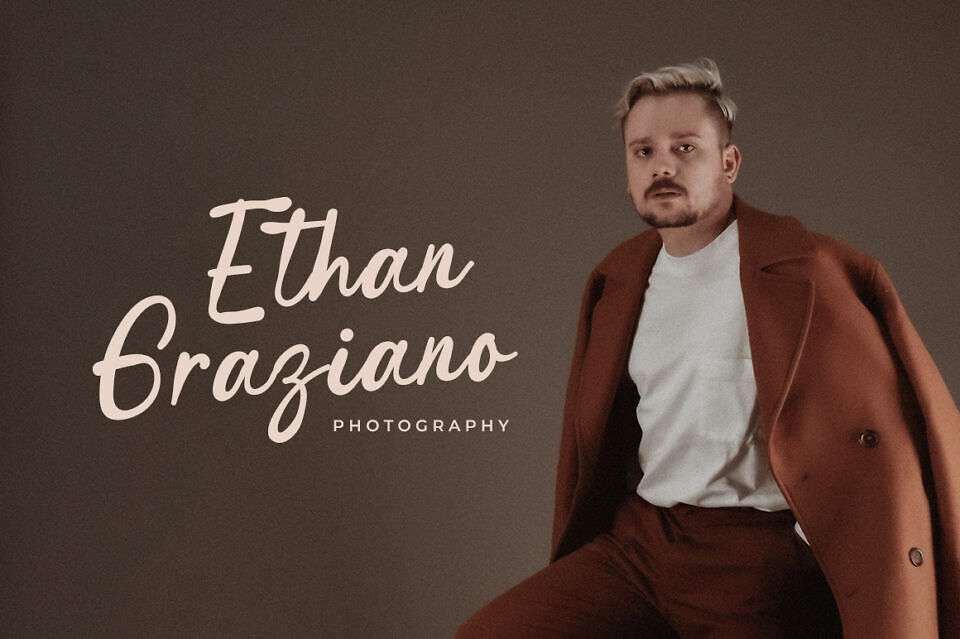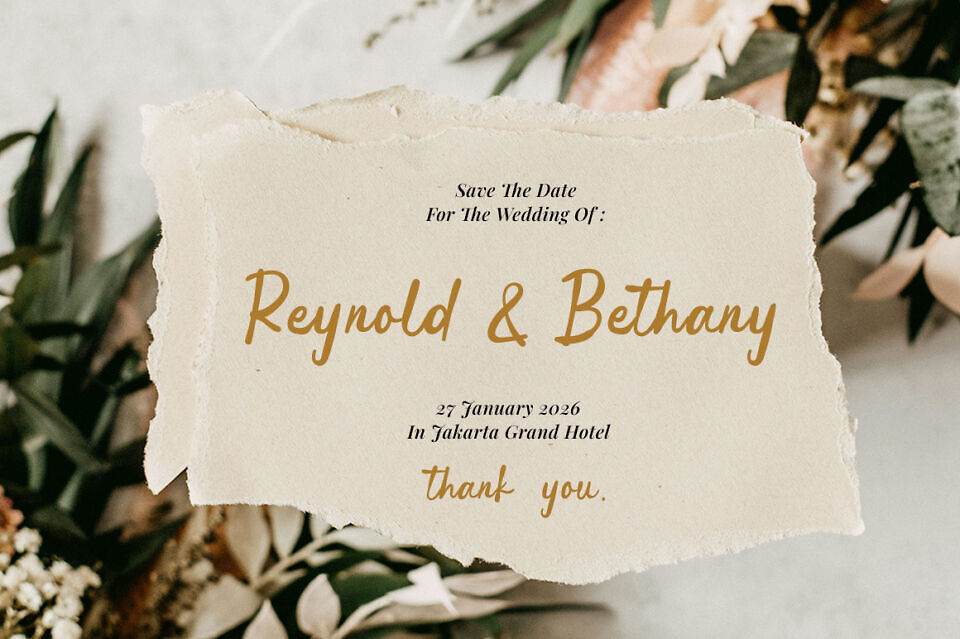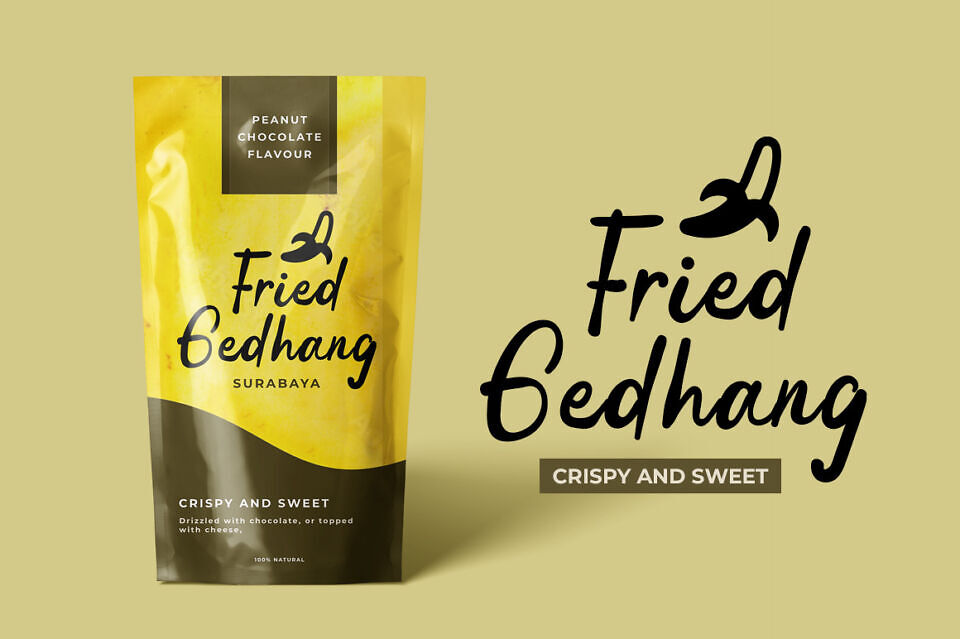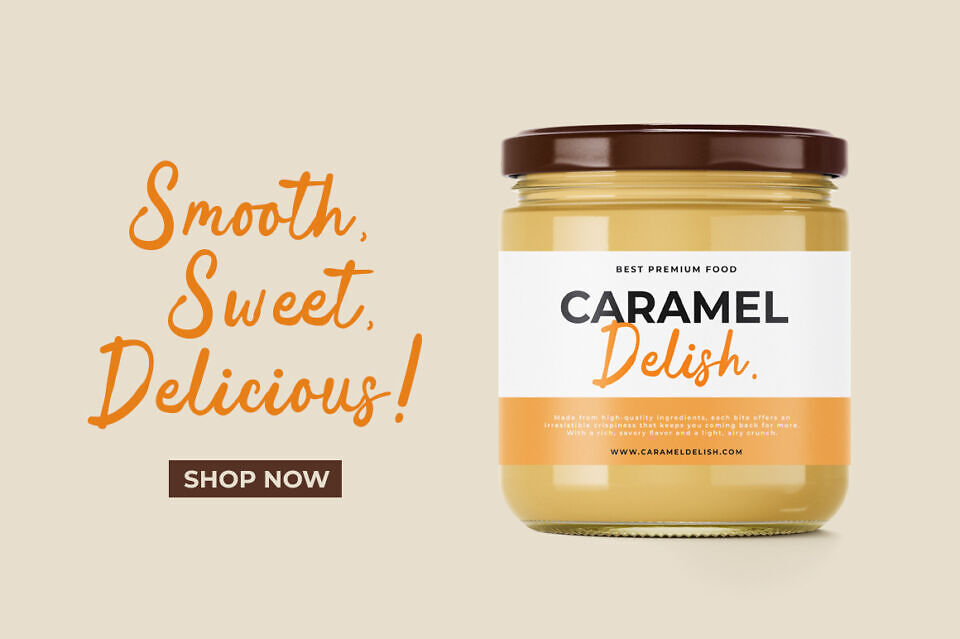
Capture the warmth of handwritten charm with Think Memories, a beautifully crafted font that embodies a natural and casual style. Perfectly balancing elegance and simplicity, this font adds a personal touch to any project, making it ideal for branding, social media, invitations, packaging, and more.
With its smooth curves and organic flow, Think Memories brings an authentic handwritten feel that resonates with nostalgia and creativity. Whether you’re designing heartfelt quotes, stylish logos, or cozy stationery, this font effortlessly enhances your work with a relaxed and inviting look.